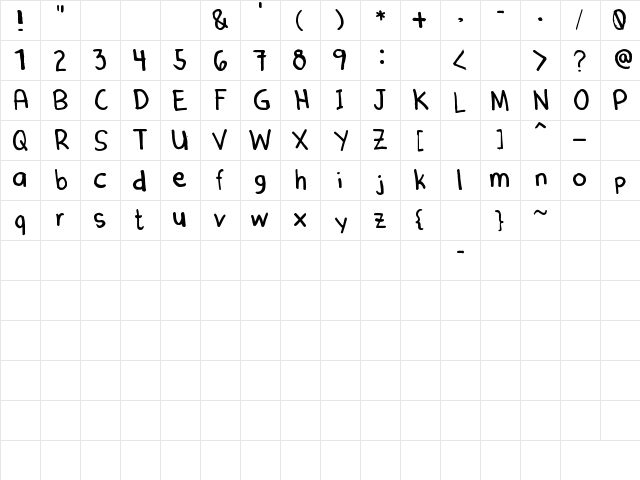
Denne Marker Regular
Design Context for Denne Marker Typeface
Denne Marker offers clean, dependable letterforms without strong stylistic allegiance, making it a practical choice for designers who need flexibility.